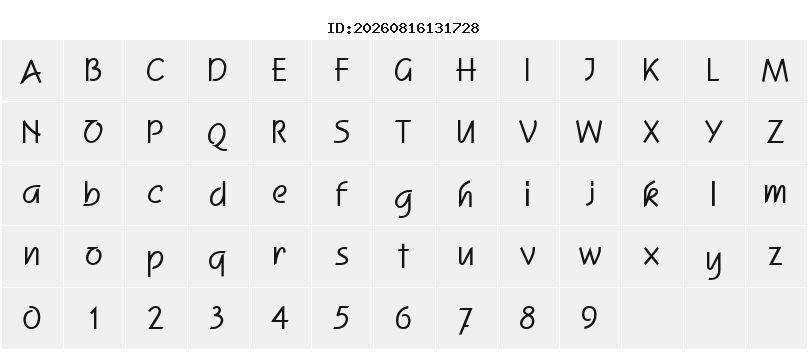
• Font Name: Squire
• Font ID: SquireITC-Bold
• Full Font Name: SquireITC-Bold
• Version: 001.003
• PostScript Name: SquireITC-Bold
• Character Count: 260
About Squire.ttf
Squire.ttf is a modern, elegant sans-serif font designed for ultimate readability and visual harmony. Perfect for branding, headlines, web design, and print materials.